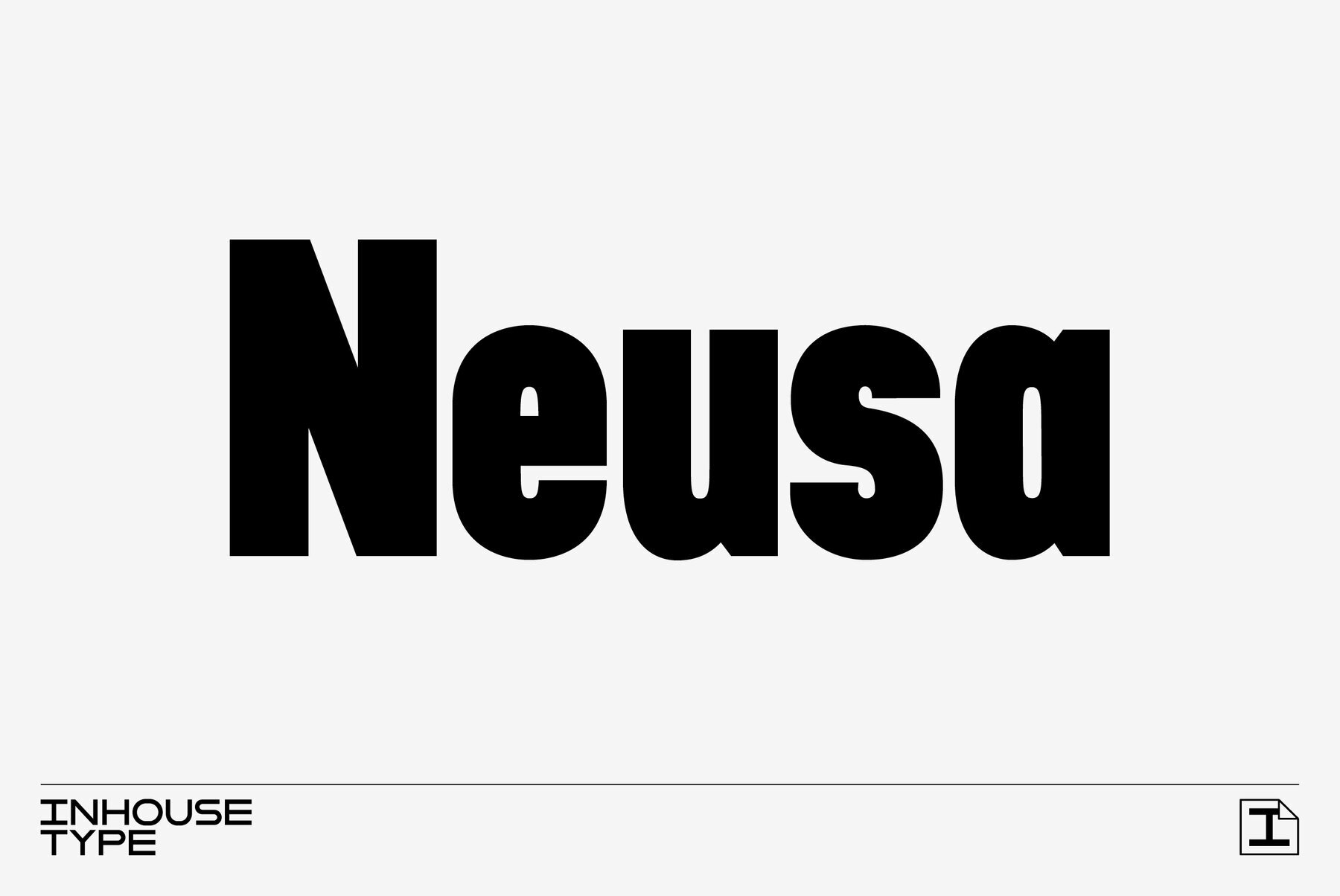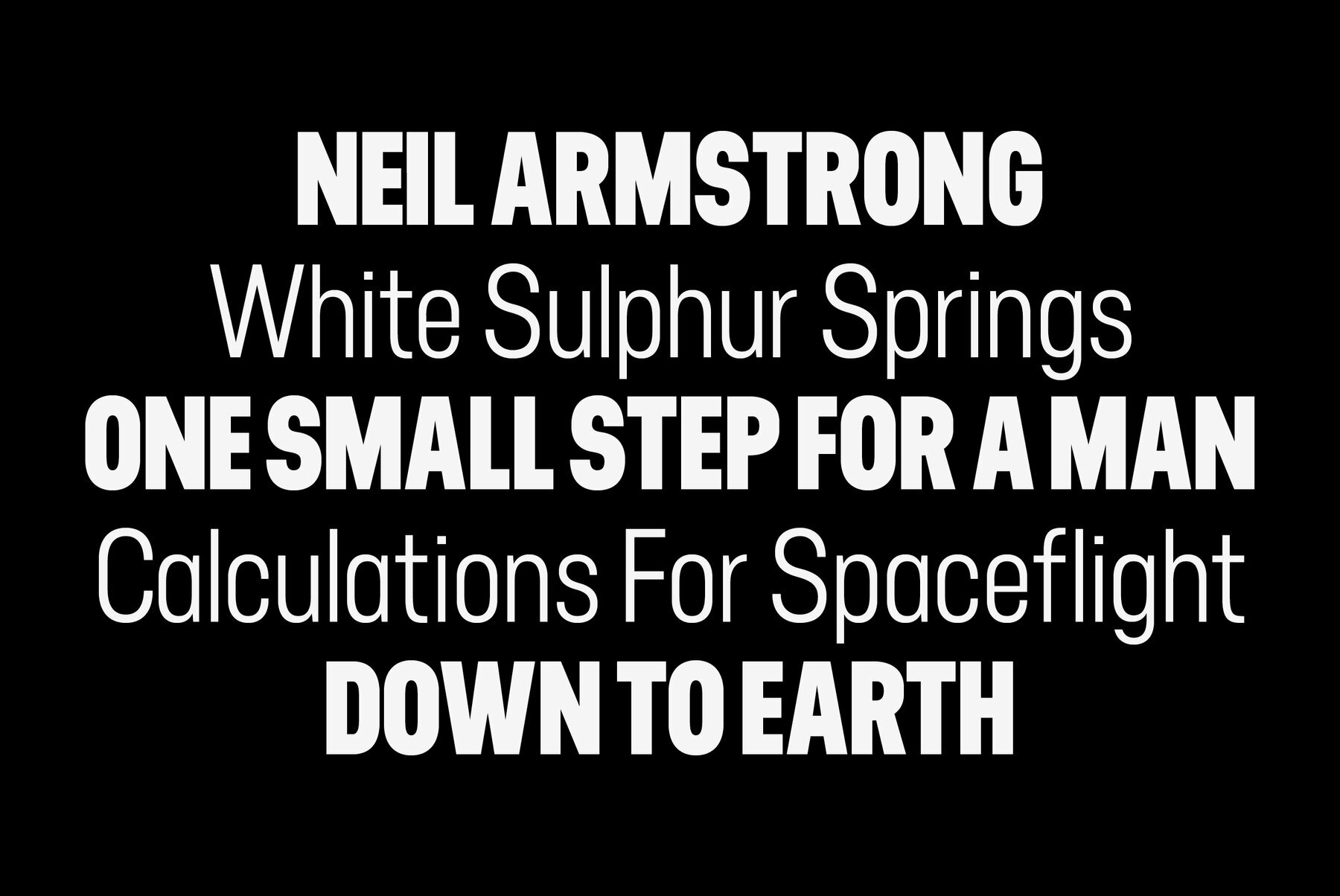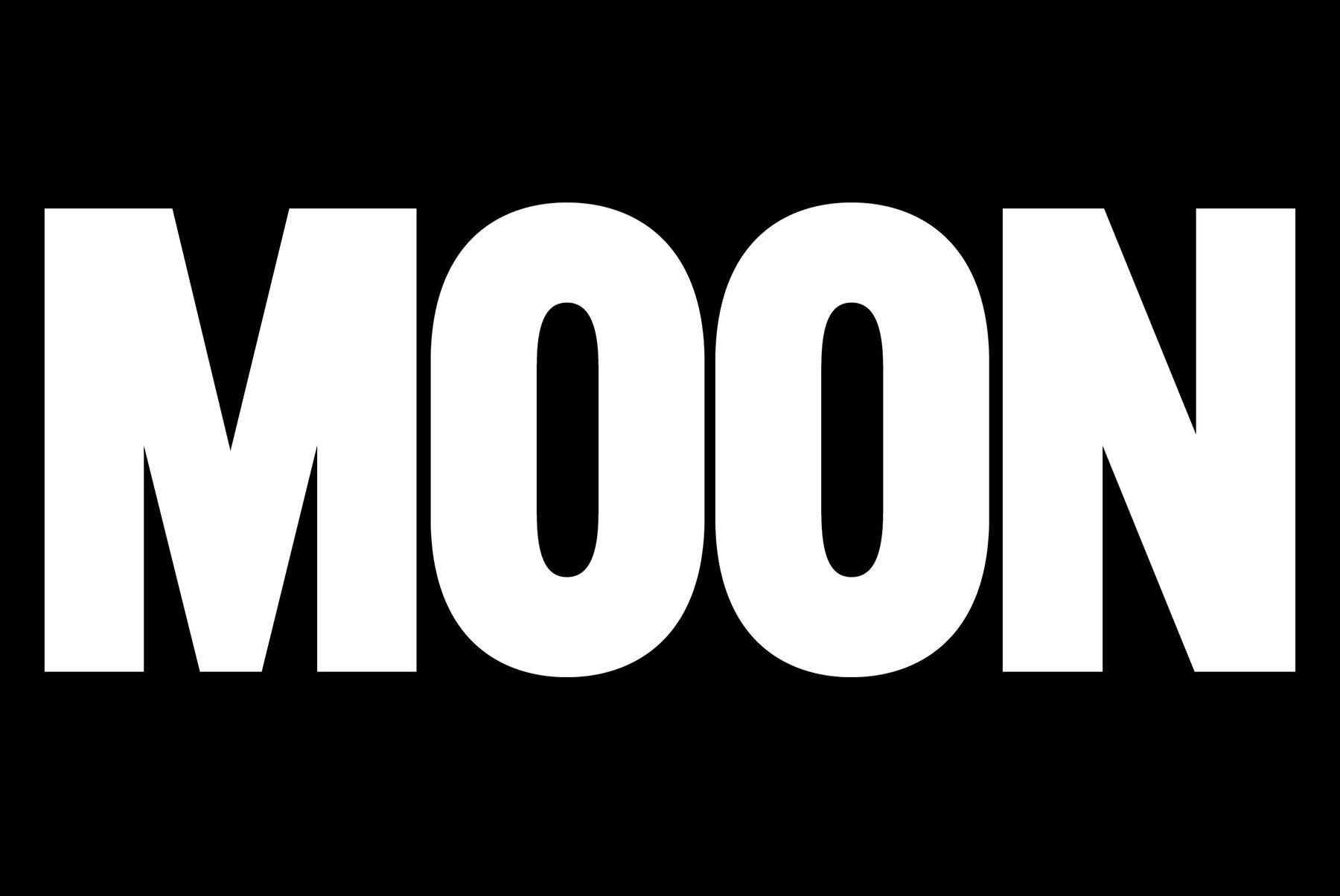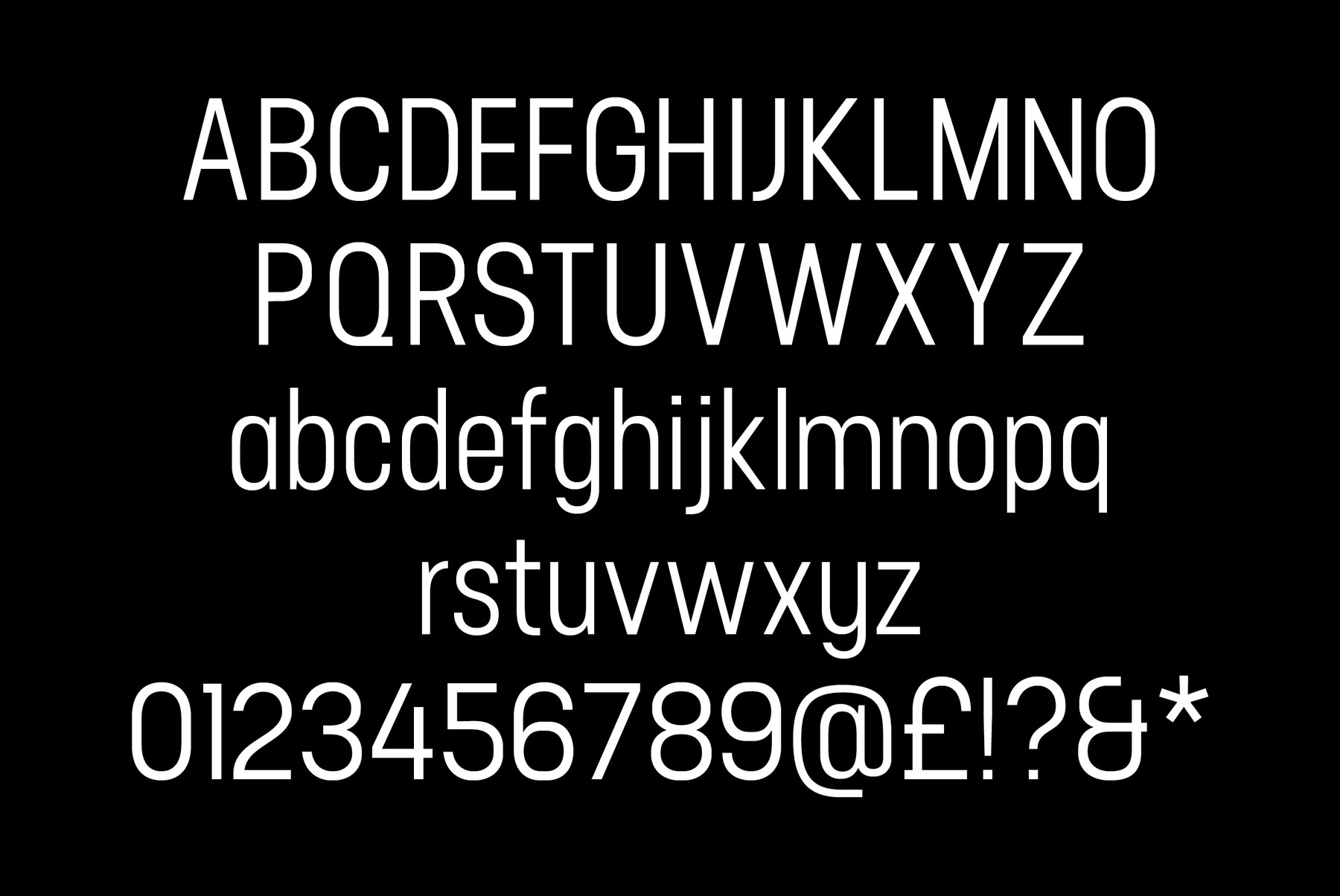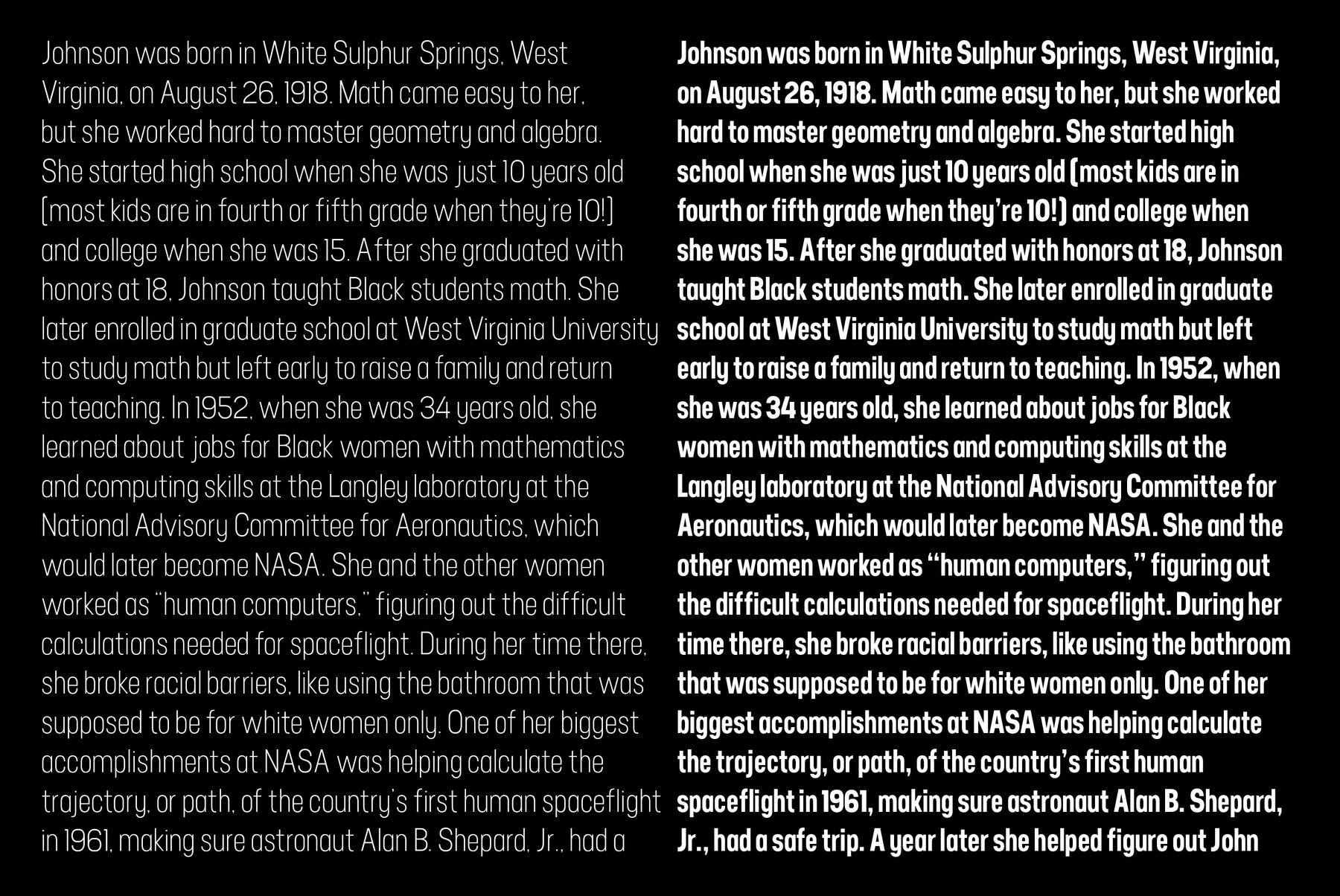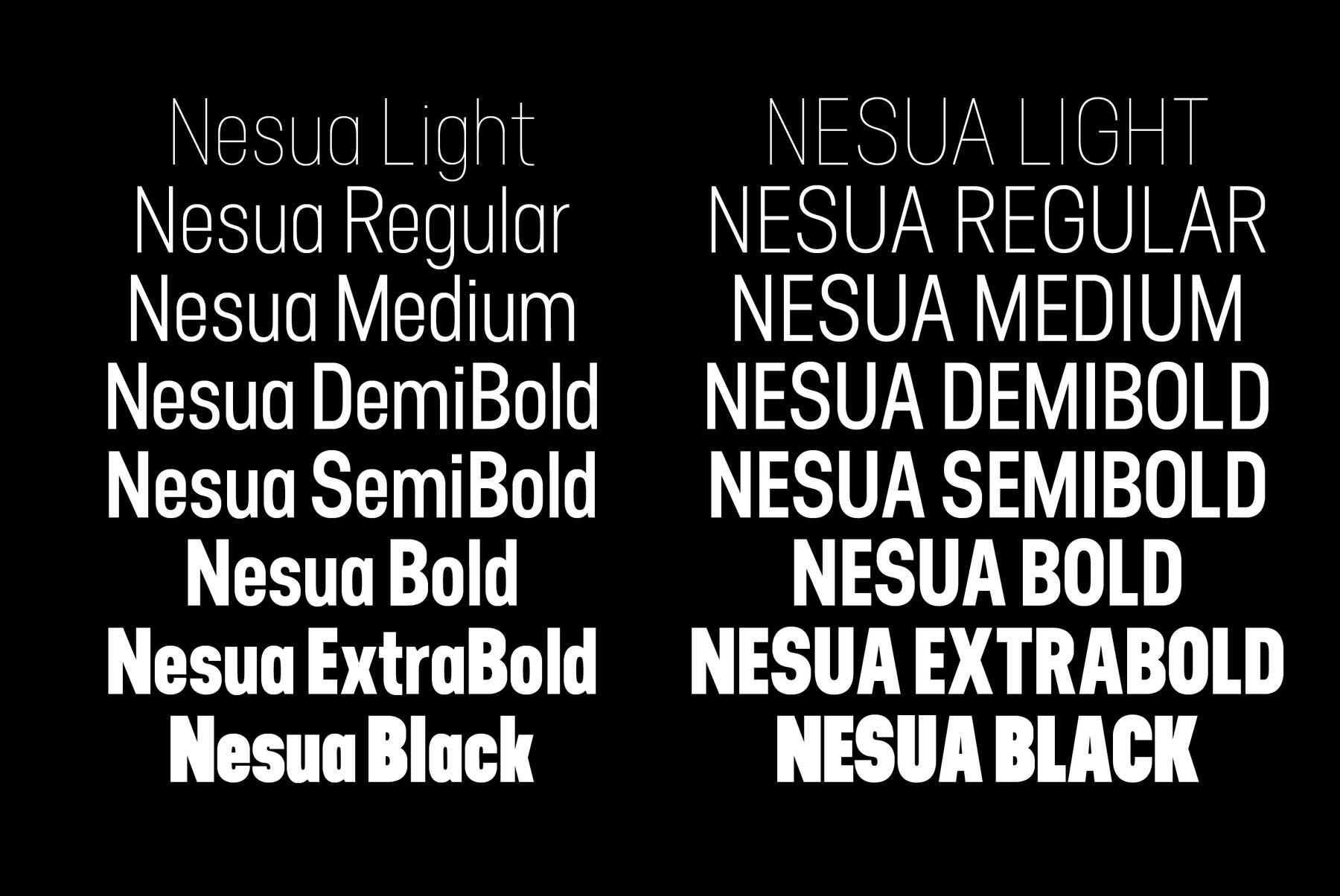
Neusa Font
Neusa is a condensed geometric sans serif typeface. This font family comes in eight weights. It was designed as a text-based font with strong display characteristics. Neusa was inspired by the early space explorations including the iconic “Life” magazine coverage of the 1969 Apollo program. Neusa family includes 8 weights, 442 characters, manually edited kerning, Opentype features and additional alternative characters.